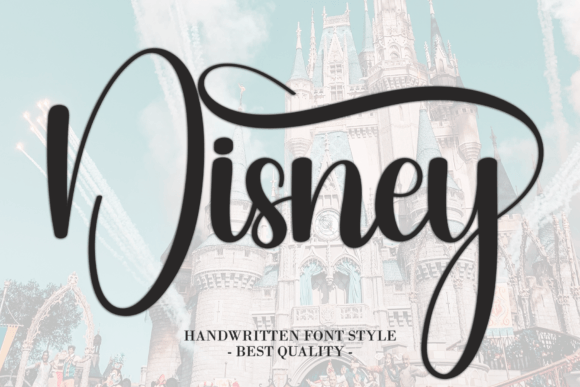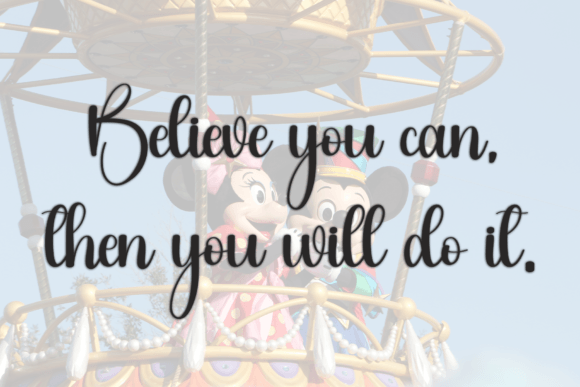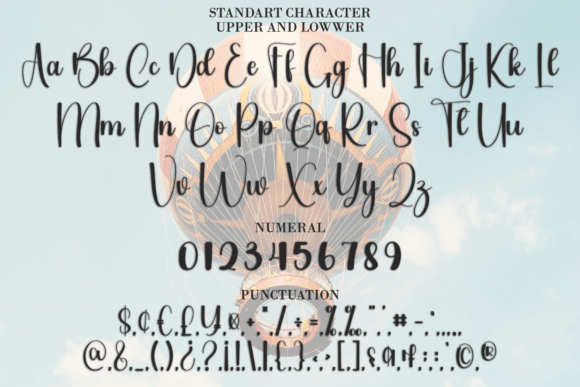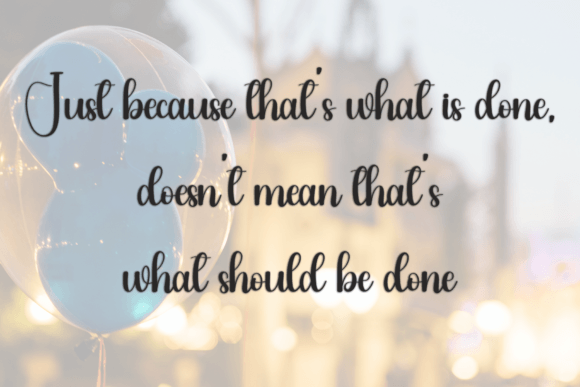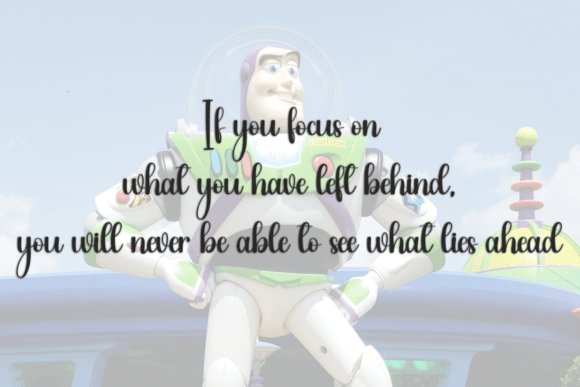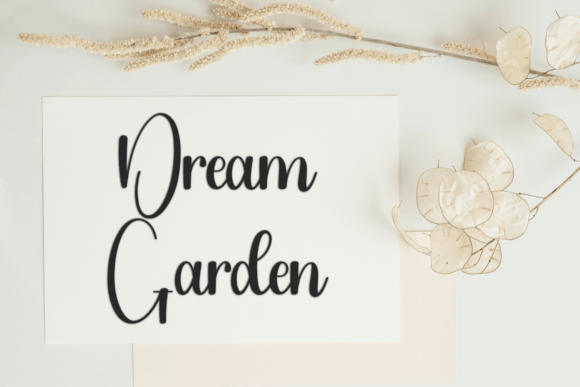
The Magic of Disney Font: Bringing Whimsy to Your Designs
Have you ever sat at your desk, staring blankly at a blank page, waiting for inspiration to strike? That’s exactly where I was when I stumbled upon the Disney Font – a sweet and friendly handwritten font that instantly sparked my creativity.
Disney Font is a unique and natural font that’s perfect for designers looking to add a touch of whimsy to their work. Its friendly style makes it incredibly versatile, allowing you to use it for a wide range of designs, from children’s book illustrations to wedding invitations. Whether you’re a seasoned designer or just starting out, Disney Font is a valuable tool in your creative arsenal.
So why is Disney Font so valuable for designers? Its unique style and natural feel make it incredibly easy to use, allowing you to focus on bringing your ideas to life. And with its wide range of applications, the possibilities are endless – the only limit is your imagination!
Disney Font Key Features
- Font Family: Disney Font is a custom-designed font family, not a standard font, and its exact font family name is not publicly disclosed.
- Unique Characteristics: The Disney Font features a distinctive, cursive script style with rounded edges and a playful, whimsical feel, evoking the classic Disney brand aesthetic.
Disney Font Review
As a designer, I was excited to dive into the Disney Font, and I must say, it has its charm. ✨ The font is a beautiful representation of the iconic Disney brand, with elegant curves and a sense of nostalgia. The font is perfect for projects that need a touch of whimsy and fantasy, such as children’s books, animated films, or even theme park attractions.
- The font is highly customizable, allowing designers to adjust the size, color, and style to fit their needs.
- It’s a great choice for projects that require a sense of luxury and sophistication, such as high-end merchandise or luxury packaging.
- The font is available in a range of weights, from light to bold, making it suitable for a variety of applications.
However, I do have some reservations about the font. ⚠️ The font may not be the best choice for projects that require a more modern or minimalist aesthetic, as it can come across as too ornate or over-the-top. Additionally, the font may not be suitable for text-heavy projects, as the curves and flourishes can make it difficult to read.
Overall, I think the Disney Font is a great addition to any designer’s toolkit, but it’s essential to use it judiciously and consider the project’s tone and style before making a decision. With its unique charm and versatility, it’s sure to bring a touch of magic to any design project.
Getting the Most Out of the Disney Font
For the best results, use the Disney Font in combination with other nostalgic elements, such as illustrations or graphics.
Experiment with different font sizes and styles to create visual interest and hierarchy in your design.
The Disney Font is commonly used in:
1. Branding and logos for children’s entertainment companies.
2. Graphic design for children’s books, magazines, and websites.